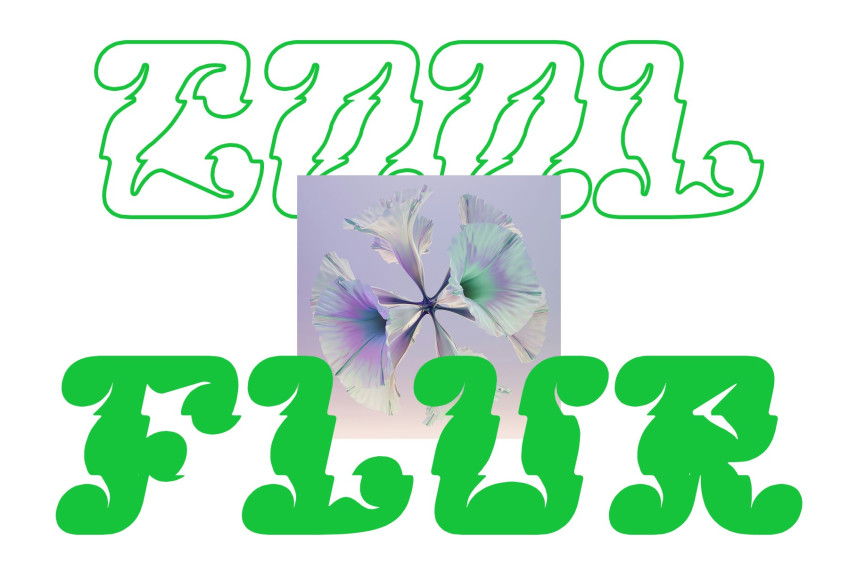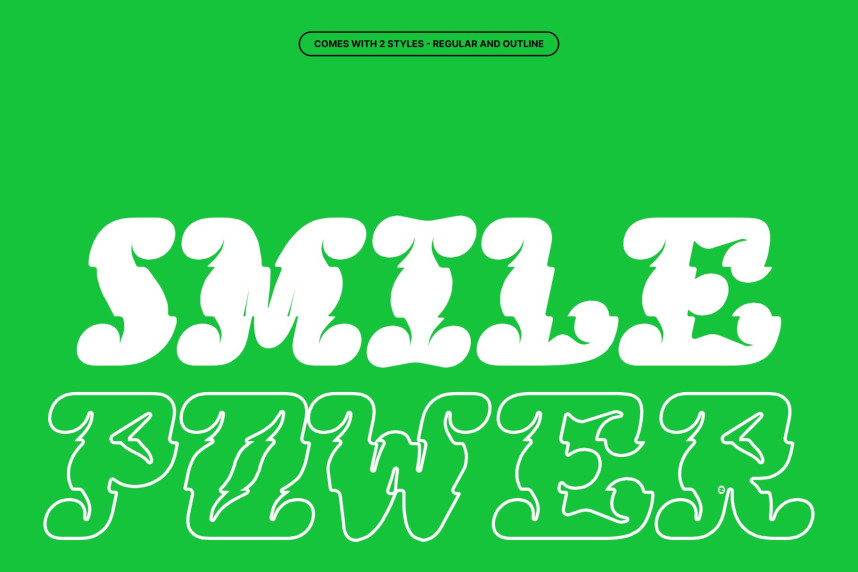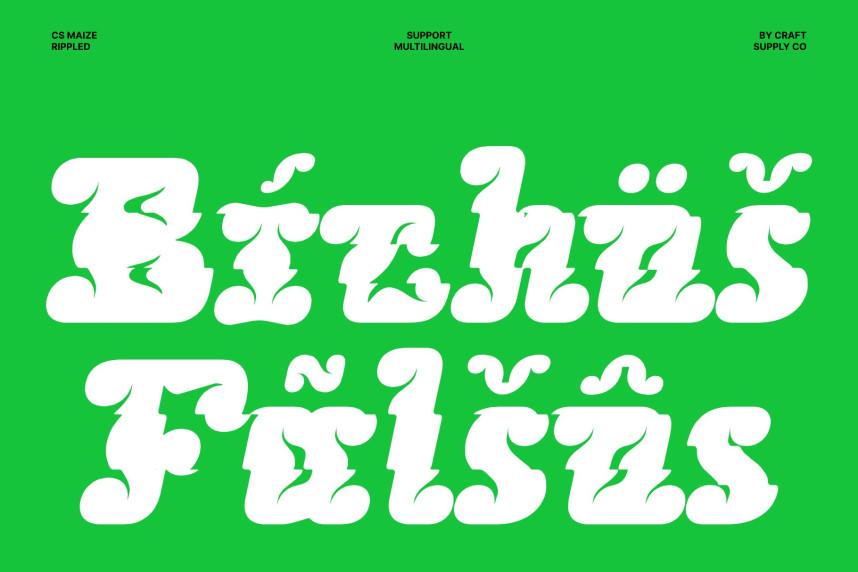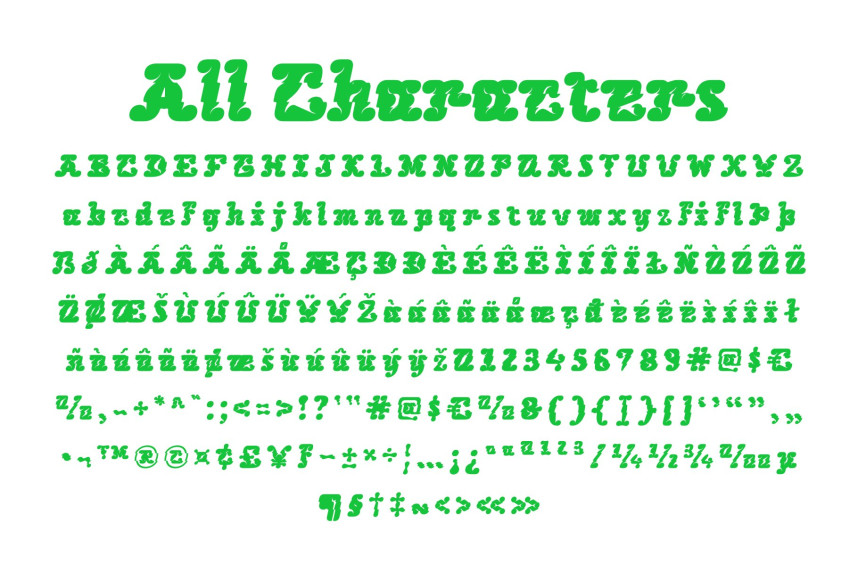
CS Maize Rippled Font
CS Maize Rippled Font – Display Font: Where Bold Decoration Meets Fluid Wave Motion
Bold, Clean, and Decorative Letterforms
This is a display font crafted with bold, clean, and decorative letterforms that instantly capture attention. Its strong shapes and carefully balanced structure create a striking visual presence, while its decorative qualities add personality and charm. The result is a typeface that feels expressive, modern, and highly memorable for impactful display use.